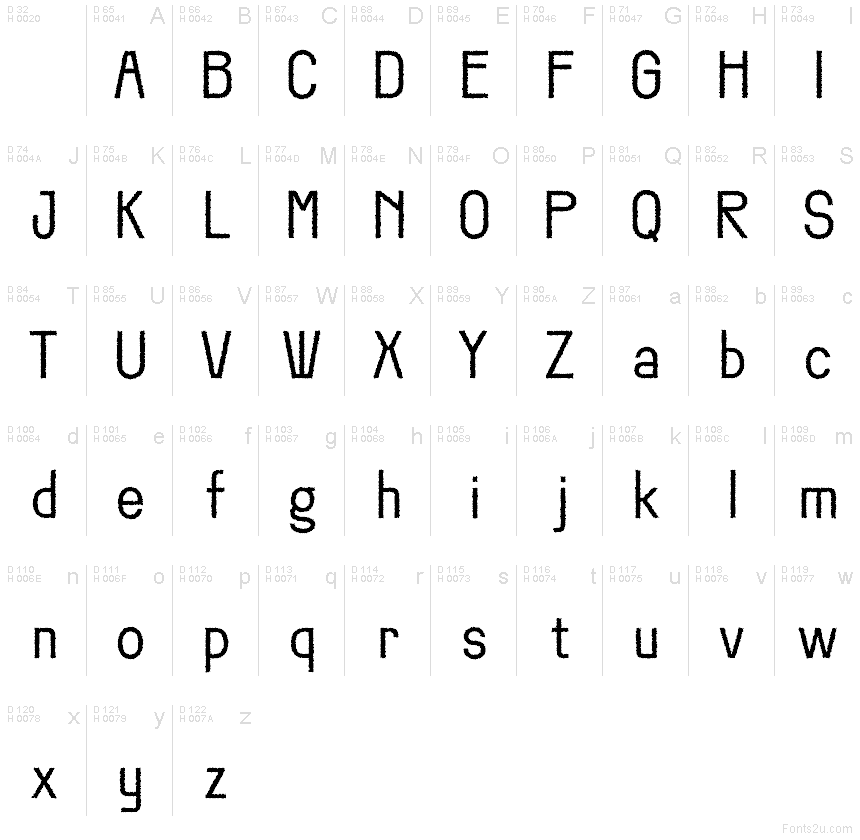
Remond Rough Regular Demo
Remond Rough font by Craft Supply Co. is an eroded display typeface with unconventional elements. Many thin protruding textures randomly mark the perimeter of the glyphs to uniquely decorate each character and transform the font into a truly artistic free work of art.
This unconventional design can be applied in poster designs for printed fonts along with invitation cards, greeting cards, and printed cavans paintings among others. Digital products don’t get less without this font identification for website headings, branding projects, mobile application user interfaces etc.